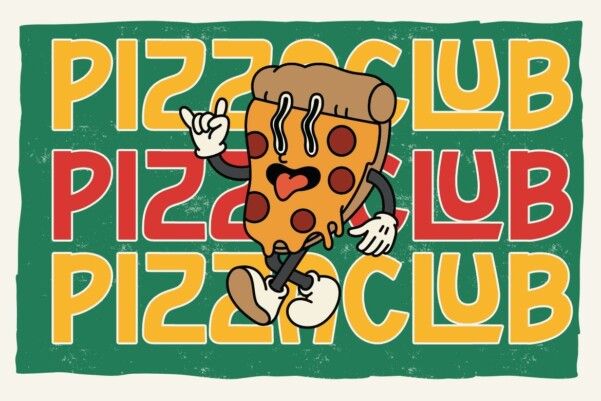
Coachelaz Font
Coachelaz Font – This font is a delicate, elegant and smooth handwritten font. It has a beautiful and unique mix of ligatures per letter, so the authors composed it with a slight swirl overlay, so that a modern font is formed and ready to make a splash by adding an elegant and unique touch to your next design project. Add it to your most creative ideas and watch how it brings them to life!